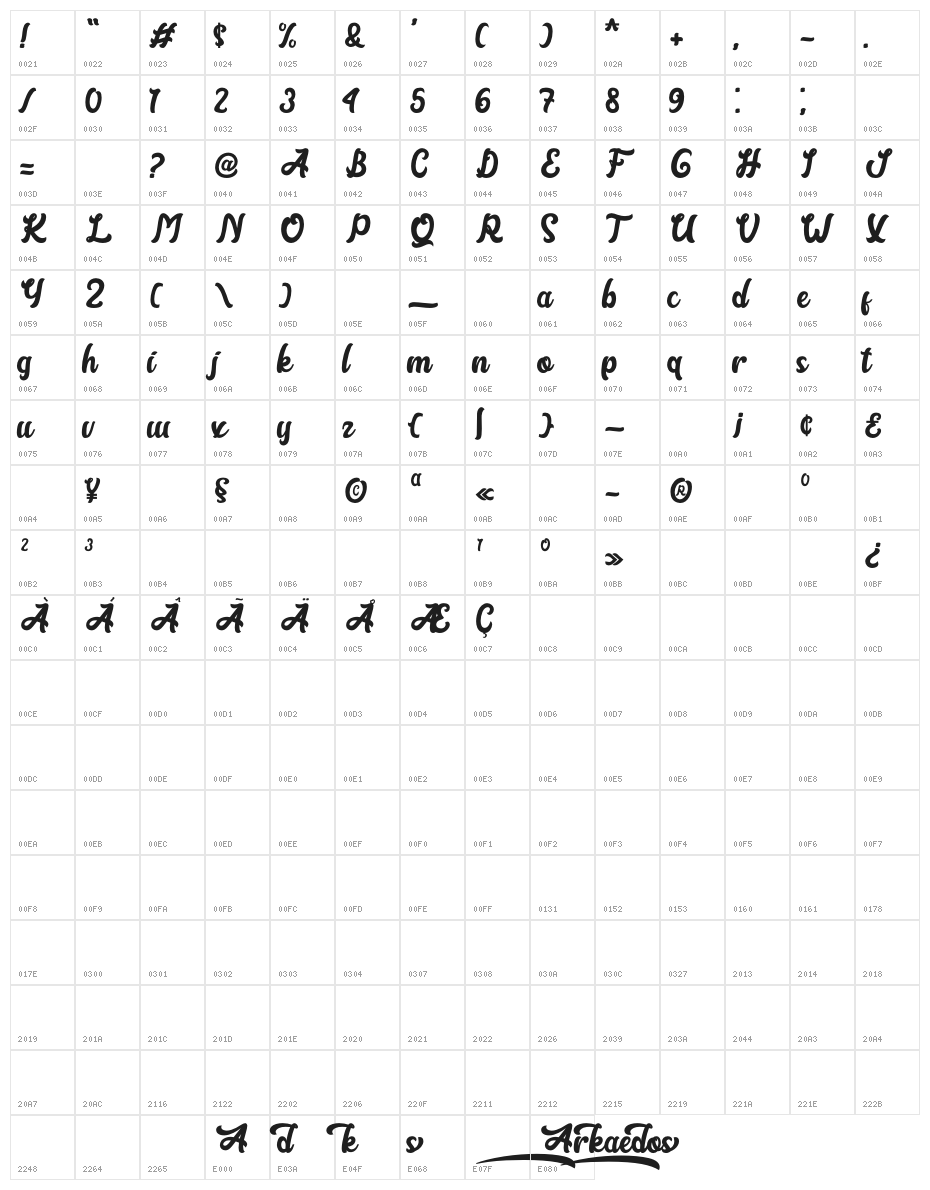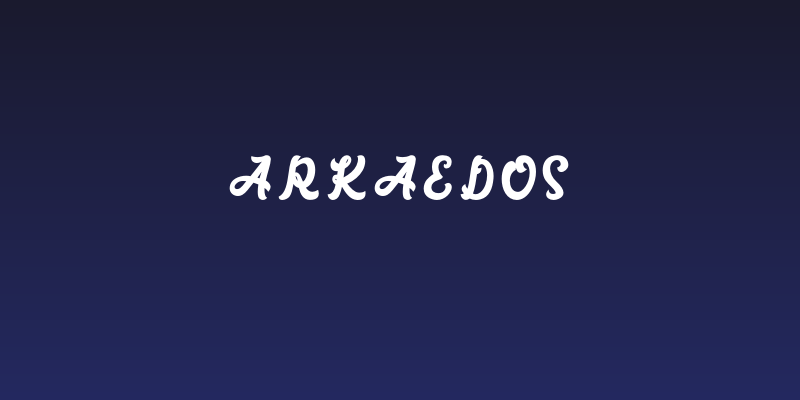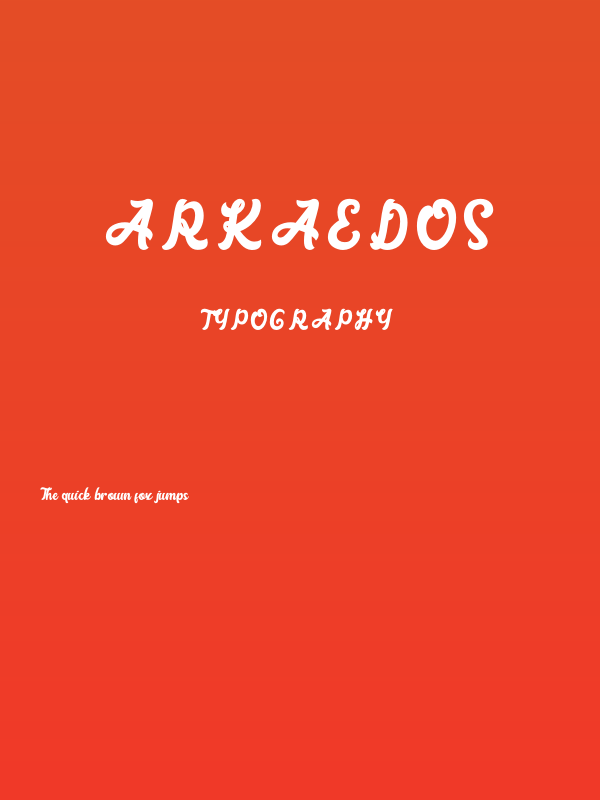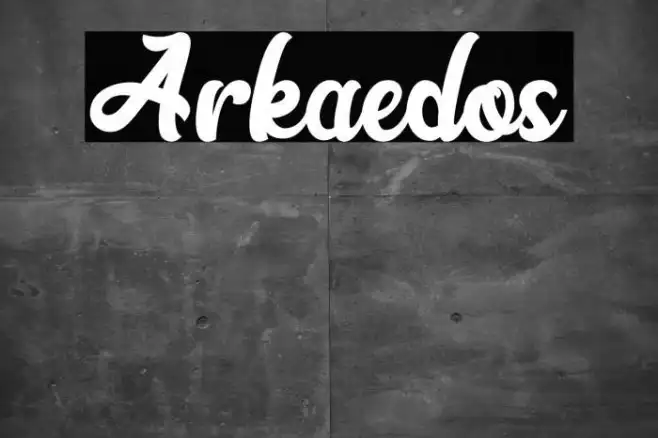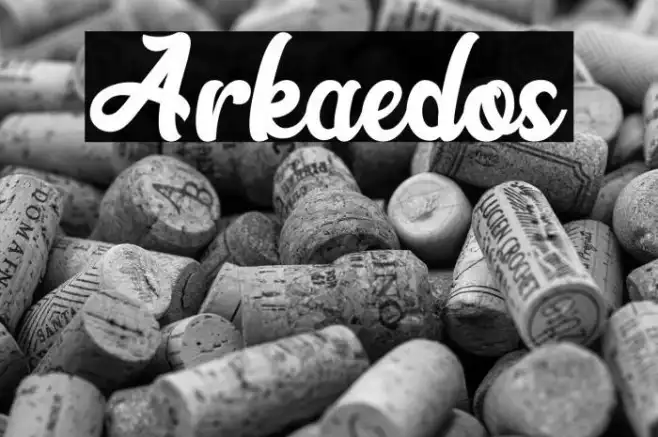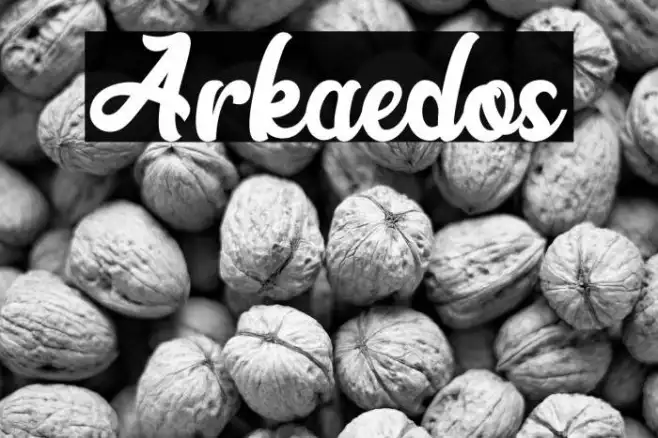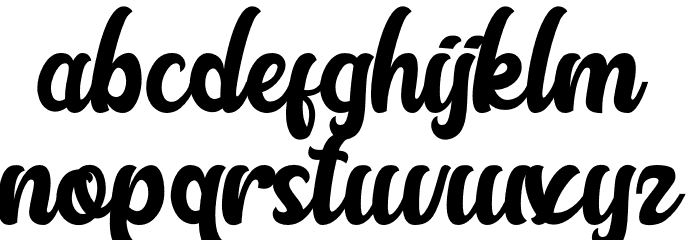
Arkaedos Font
Arkaedos Description
This font features a bold and expressive script style, characterized by its flowing, cursive letterforms. The uppercase letters are elegantly designed with a consistent slant, while the lowercase letters maintain a smooth, connected appearance. The numerals are rounded and maintain the same fluidity as the alphabetic characters. Special characters are crafted with the same attention to detail, ensuring a cohesive look throughout. The overall design is both playful and sophisticated, making it suitable for a variety of creative applications.